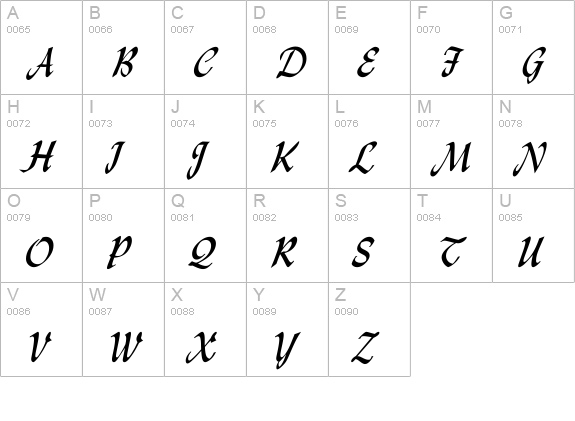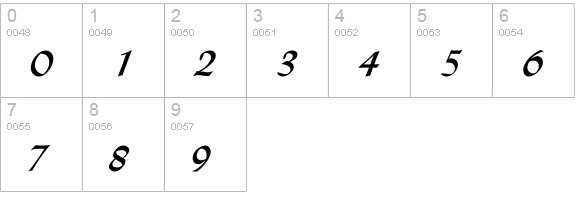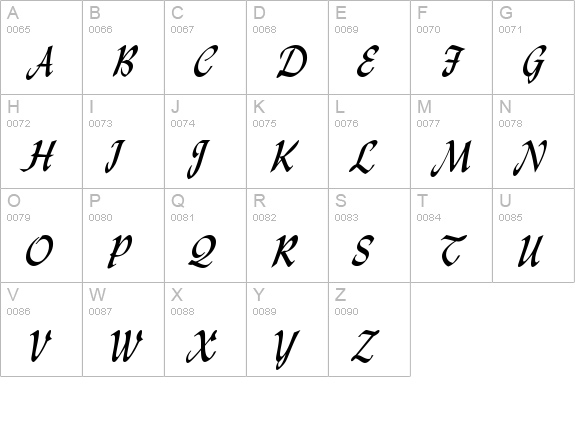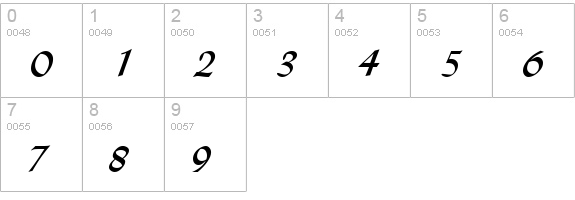
Lisbon Cursive is an elegant and sophisticated font that exudes charm and grace. This beautifully designed cursive font is perfect for adding a touch of sophistication to your projects, whether it be invitations, greeting cards, or branding materials. The flowing lines and gentle curves of Lisbon Cursive create a sense of movement and fluidity, making it a stunning choice for any design project. Best of all, Lisbon Cursive is completely free to download at FontsMarket.com. So you can add this exquisite font to your collection without any cost. Don't miss out on the opportunity to elevate your designs with the timeless beauty of Lisbon Cursive. Download it today and bring a touch of elegance to your projects.